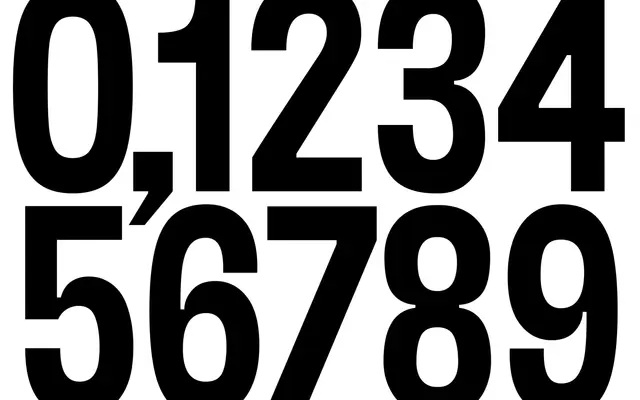
Alfredino Semimono
A single-weight geometric sans offered in three style variants, balancing a clean contemporary look with a slightly vintage character.
Three named styles distinguish the family: Semimono offers streamlined, unornamented letterforms with strong visual clarity; Semirounded introduces bevelled seams against defined edges for a more dynamic finish; Tuttocurvy rounds out the set with flowing, playful forms suited to illustrative contexts. The glyph set of 394 includes alternates, ligatures, diacritics and fractions across extended Latin coverage. Only a single weight is available, which limits typographic range but keeps the offering focused.
A clean, geometric sans with semi-monospaced spacing and distinct style variants; the letterforms are streamlined with no serifs and draw on a geometric, slightly vintage sensibility.